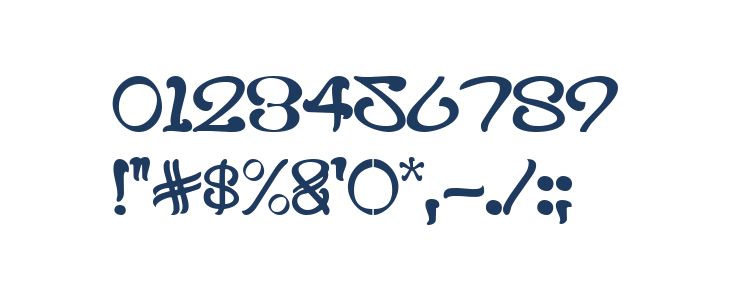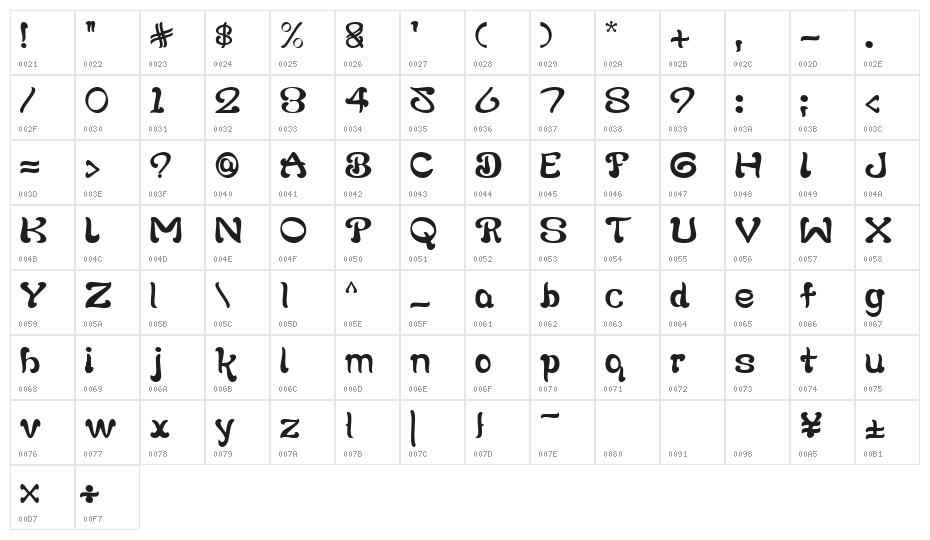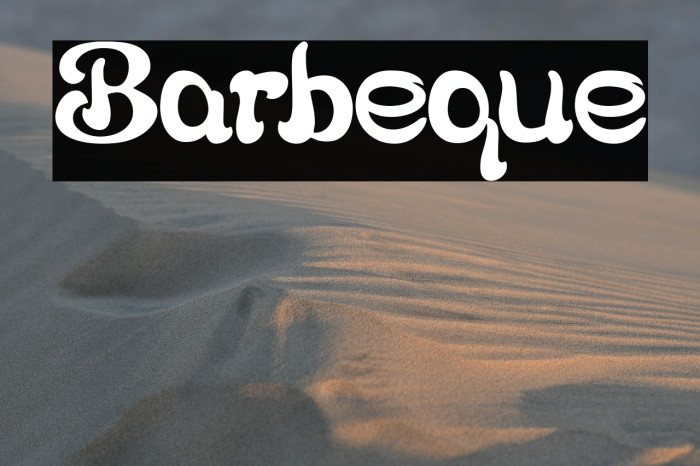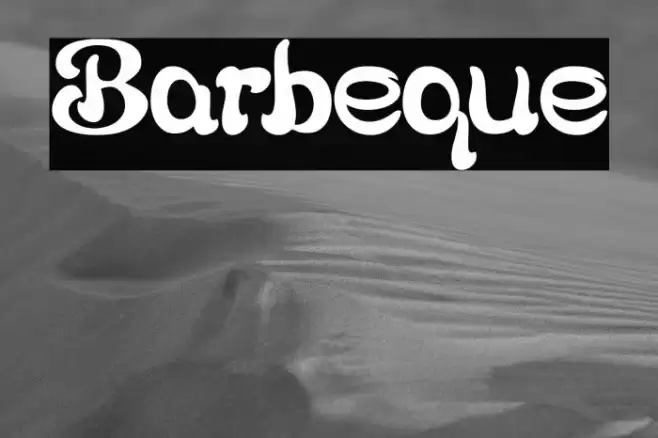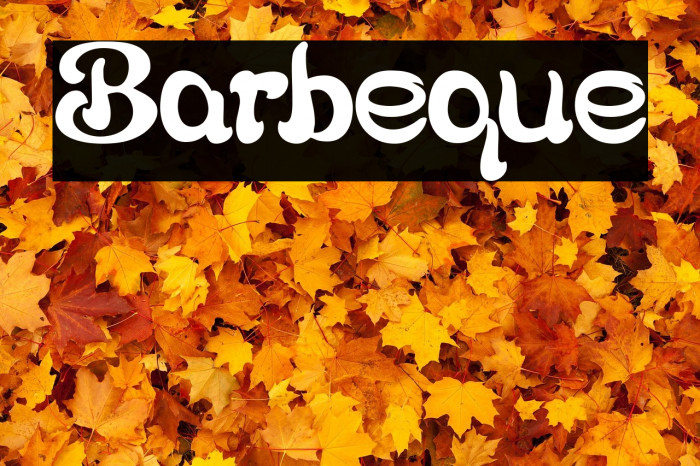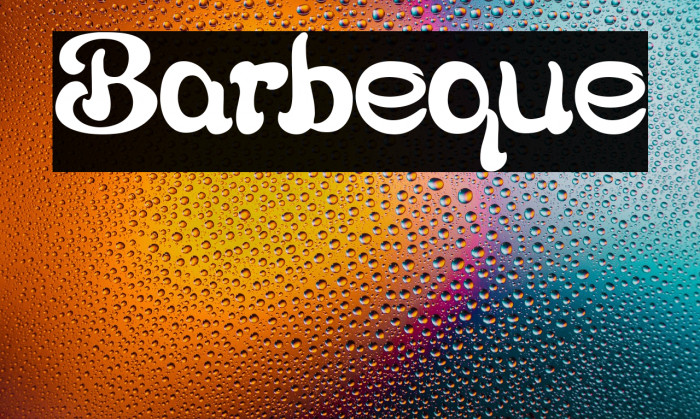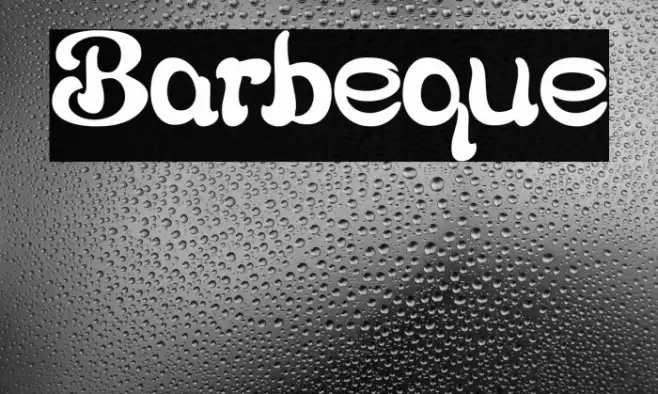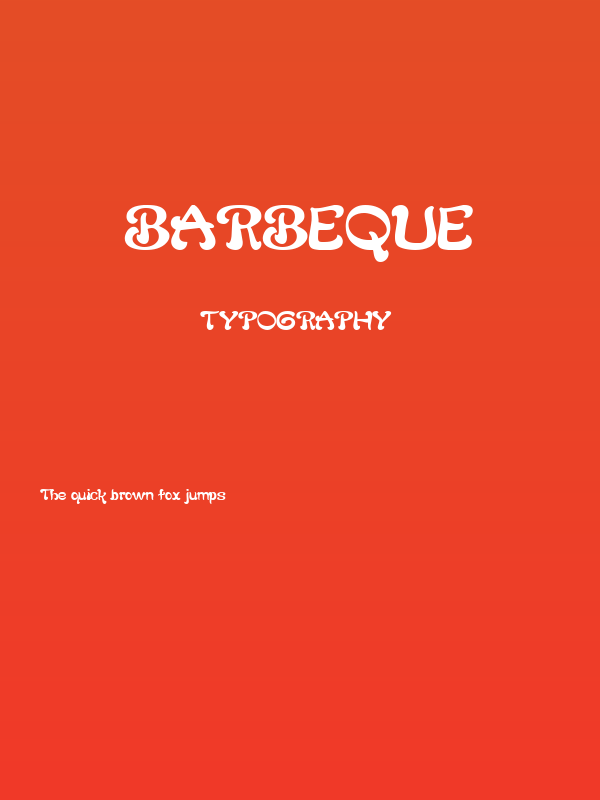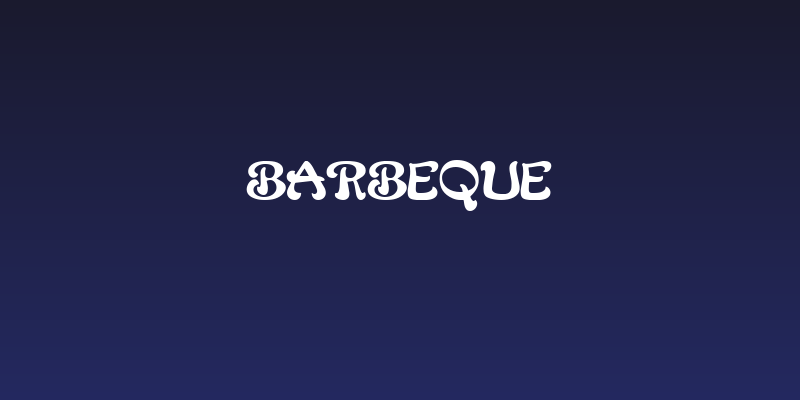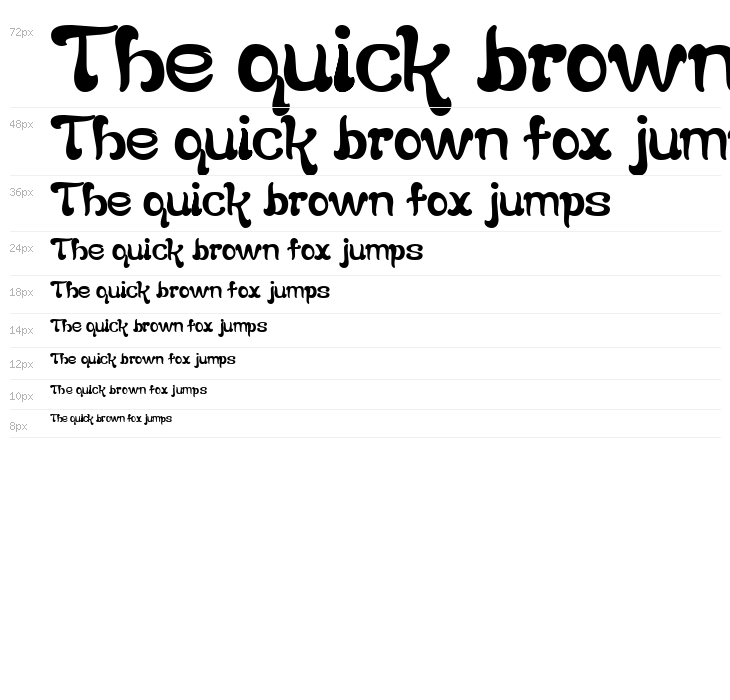
Barbeque Font
Barbeque Description
This font features a bold and playful design with a distinctive, rounded style. The characters are thick and exhibit a whimsical, almost cartoonish flair, making them stand out with their unique curves and loops. The uppercase letters are particularly striking, with a strong presence and a sense of movement. The lowercase letters maintain the same playful aesthetic, ensuring consistency across the typeface. Numbers and special characters are equally bold and expressive, adding to the font's overall charm. This font is ideal for projects that require a fun and engaging visual element.
| Proposed Projects | Perfect for children's books, playful branding, party invitations, and creative posters. |